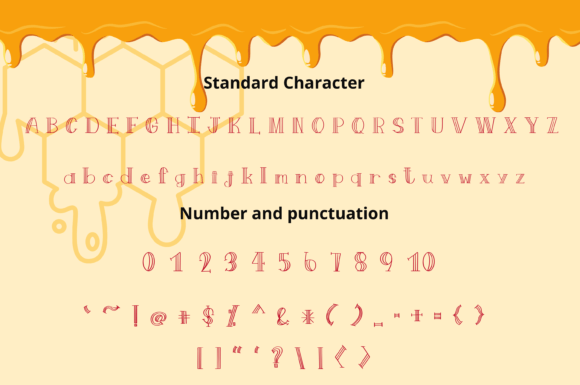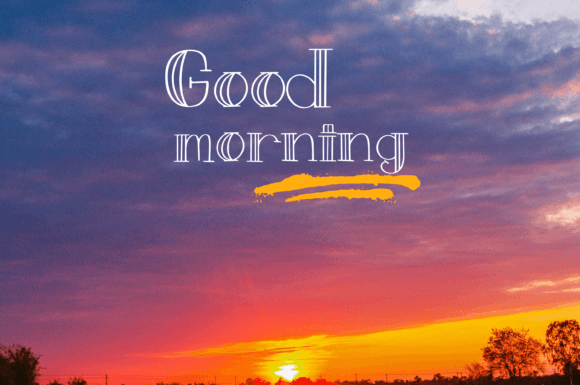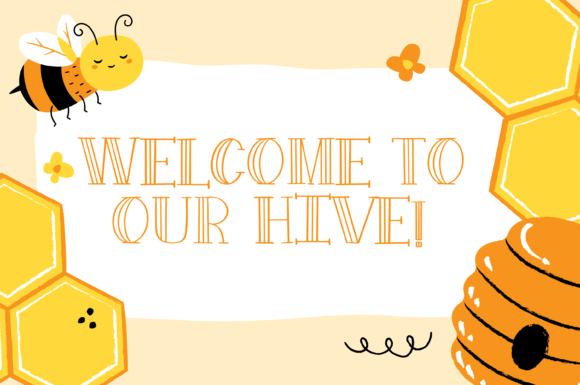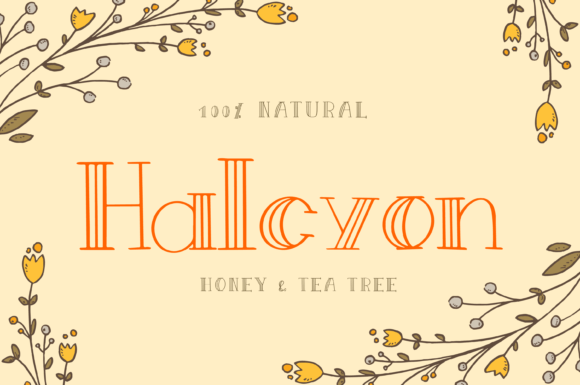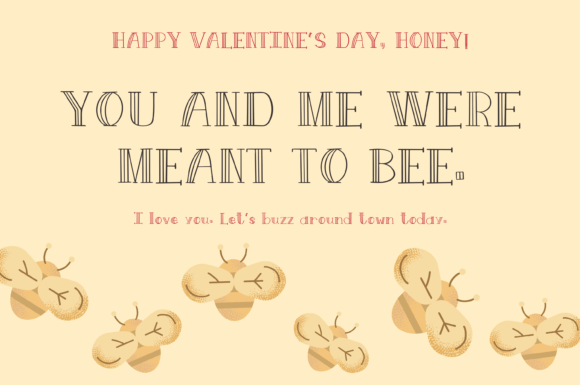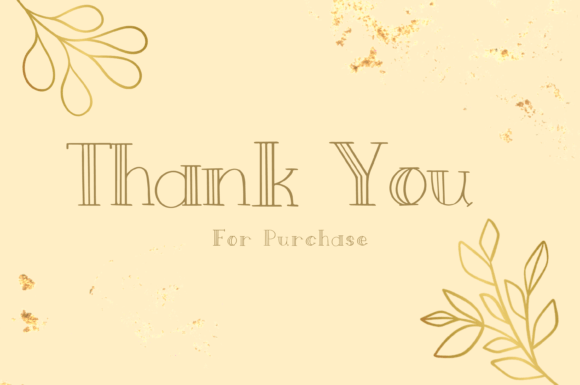
Introduction to Jelly Honey Font
Have you ever stared at a blank page, searching for the perfect design element to bring your creative project to life? That’s exactly where I found myself a few days ago. Scrolling through design resources, I stumbled upon a free download that caught my eye – the Jelly Honey Font. Its whimsical and clean handwritten style immediately stood out, making me wonder what kind of magic it could add to my design.
As I delved deeper into the world of this delightful font, I realized that it’s more than just a pretty face. The Jelly Honey Font offers a high-quality design solution that can be seamlessly integrated into a wide range of projects, from branding and marketing materials to digital and print designs. With its versatility and unique aesthetic, it’s no wonder that designers are flocking to this design resource.
Key Features of Jelly Honey Font
- Unique and playful design: Jelly Honey Font is a creative resource ideal for artistic projects, offering a distinctive look that sets your work apart.
- High-resolution font: The font is designed with a high resolution of 300 DPI, ensuring crisp and clear text rendering, perfect for print and digital applications.
- Scalable design: Jelly Honey Font is optimized for use in various sizes, from small to large, making it an ideal choice for logos, titles, and body text.
Honest Review: Jelly Honey Font
I recently had the chance to experiment with the Jelly Honey Font, and I must say it’s been a delightful experience. As a designer, I’m always on the lookout for high-quality design resources that can elevate my creative projects. The Jelly Honey Font delivers.
- ✨ Unique and playful style that’s perfect for adding a touch of whimsy to your designs.
- ✨ High-quality glyphs that maintain their clarity even when scaled up or down.
- ✨ Easy to customize and pair with other fonts.
- ⚠️ Limited character set, which may not be suitable for complex texts or multi-language projects.
- ⚠️ May not work well on transparent backgrounds due to its bold and playful style.
Overall, I’m impressed with the Jelly Honey Font’s unique style and high quality. While it may have some limitations, it’s an excellent choice for designers looking to add a touch of creativity to their projects. The free download option is a definite bonus, making it a valuable addition to any design resource library.
The Jelly Honey Font is a unique and creative design resource that can add a touch of elegance to your projects. It features a transparent background and is available for free download, making it a high-quality addition to any design project.
Tips for Getting the Most Out of Jelly Honey Font
To maximize the impact of the Jelly Honey Font, use it in creative projects that require a touch of sophistication and elegance.
The Jelly Honey Font is ideal for:
Branding and logo design
Editorial and publishing projects
Any project that requires a unique and high-quality font.
Comparison to Jelly Honey Font: Pacifico Font has a more elegant and refined feel compared to Jelly Honey Font, which has a more playful and whimsical tone. Pacifico Font is also more versatile and can be used in a wide range of design contexts.
Is Jelly Honey Font suitable for high-resolution printing?
Yes, Jelly Honey Font is designed to be high-quality and suitable for high-resolution printing. The font is optimized for use in digital and print media, ensuring it looks great on various devices and printing equipment. You can use it for business cards, brochures, and other printed materials with confidence.